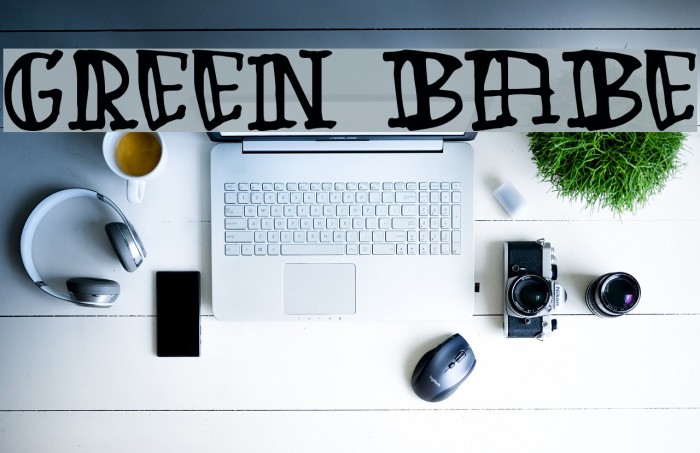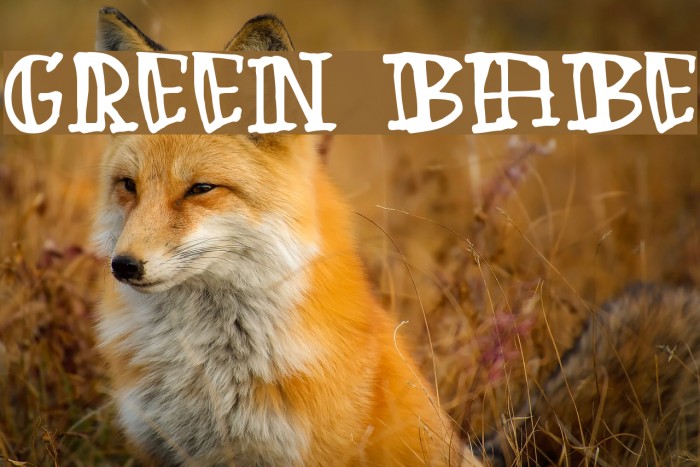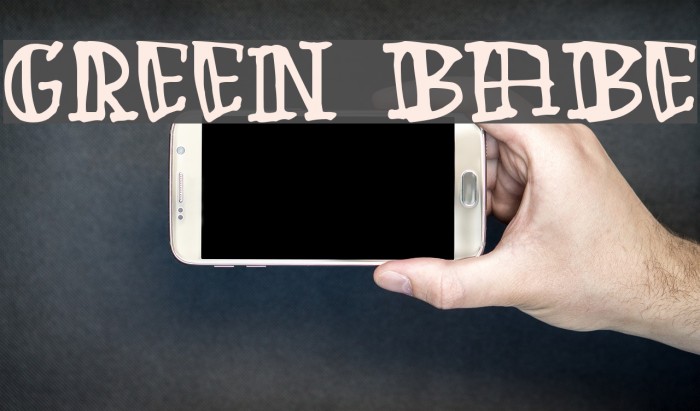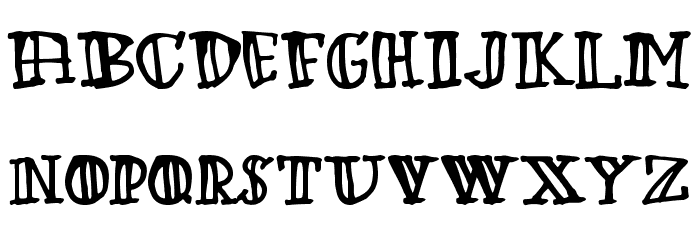
Green Babe Font
Green Babe Description
This font features a playful and bold design, characterized by its irregular and slightly whimsical letterforms. The uppercase letters have a unique, hand-drawn appearance with varying stroke widths that add a dynamic and lively feel. The lowercase letters maintain this playful style, ensuring consistency across the typeface. The numbers and special characters follow the same design principles, making the font versatile for creative projects. Its boldness and distinctive style make it stand out, perfect for grabbing attention.
A playful, bold font with irregular, hand-drawn letterforms from Typewriter fonts.
- Proposed Projects: Ideal for children's book covers, playful branding, posters, and creative invitations.
- Overall Style: Playful, Creative